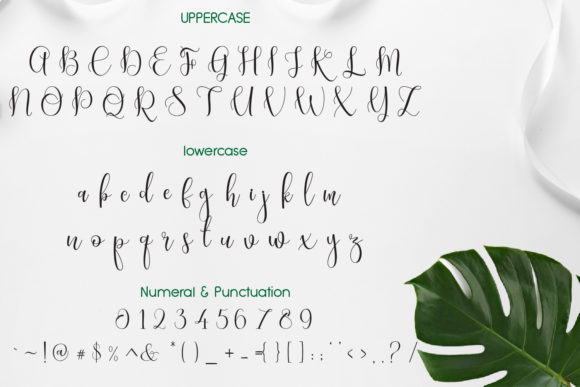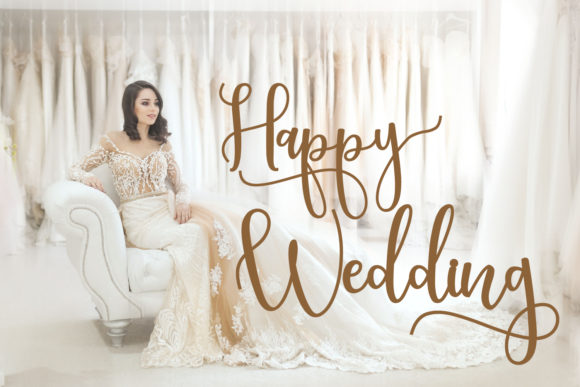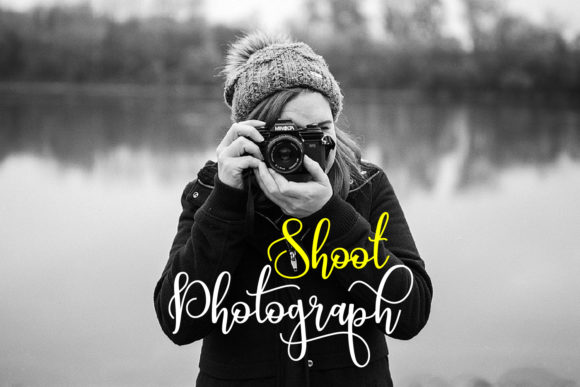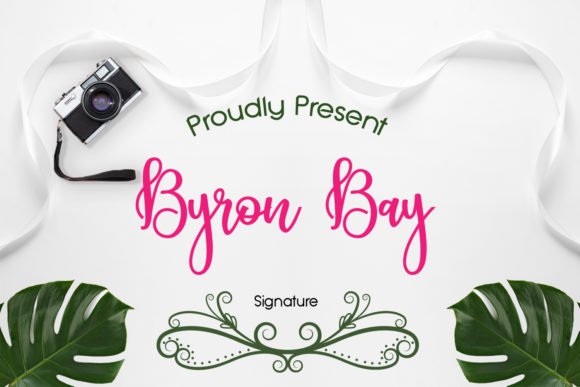
Introduction to Byron Bay Font
Byron Bay is a beautiful handwritten font.
Use this font for your designs and explore its endless possibilities This font is PUA encoded which means you can access all of the glyphs and swashes with ease.